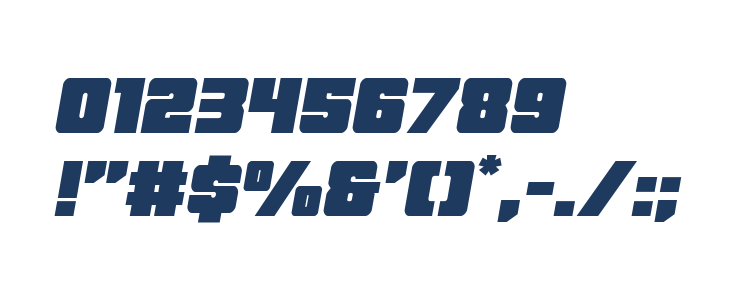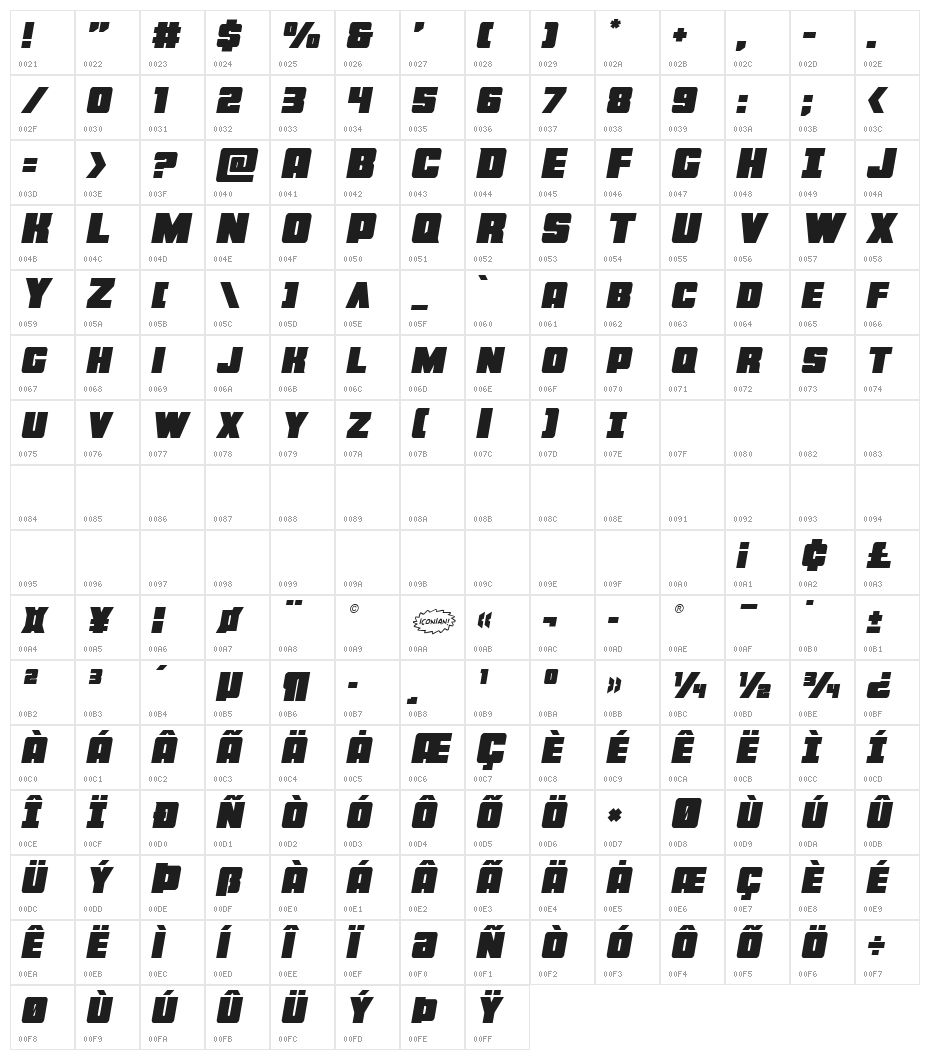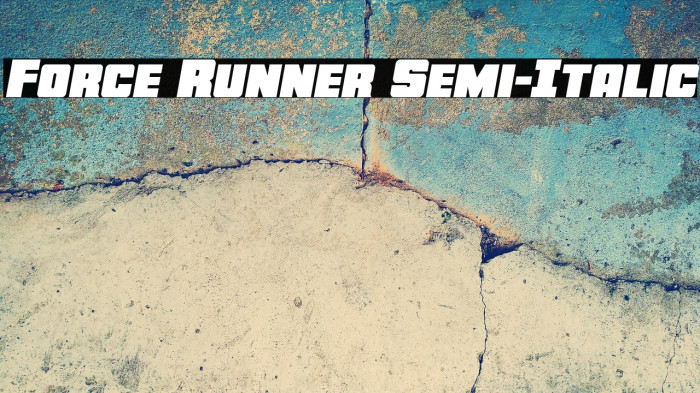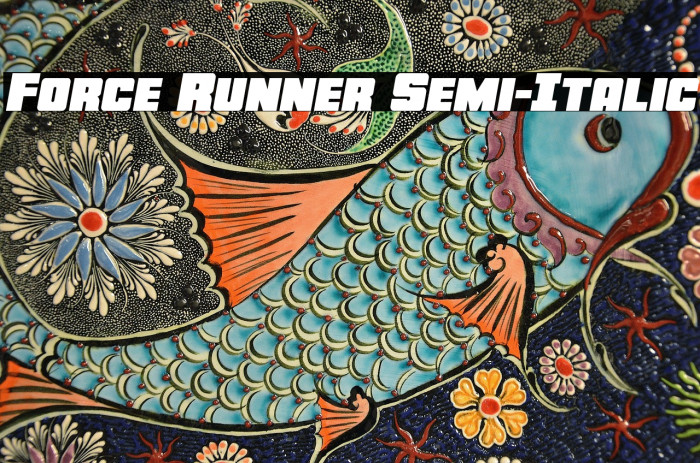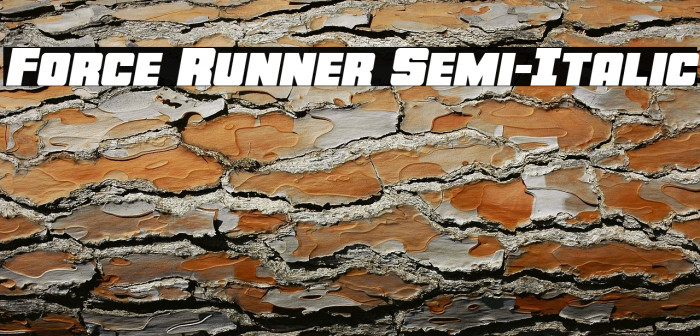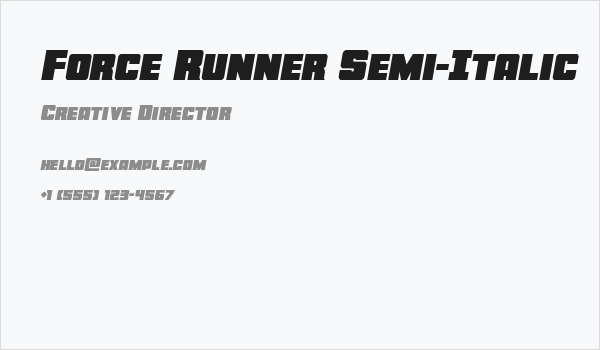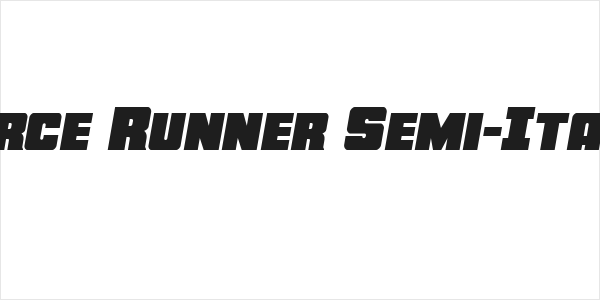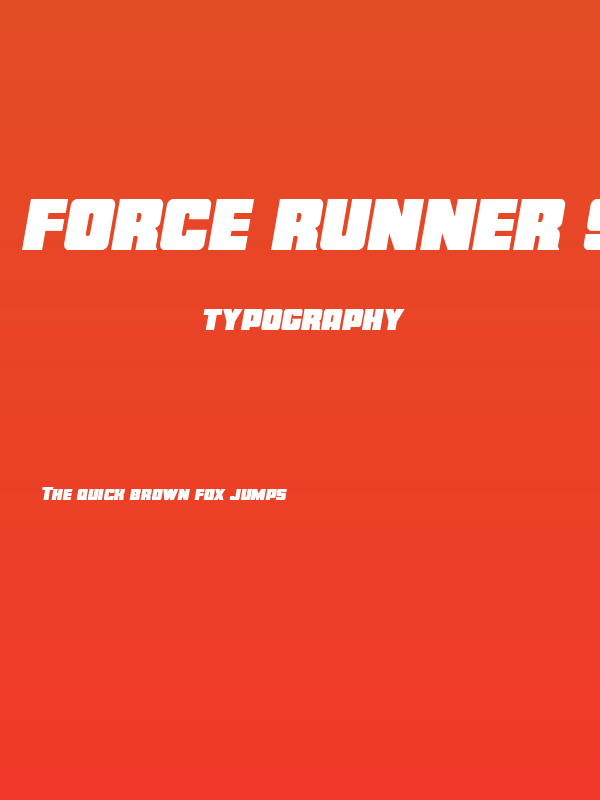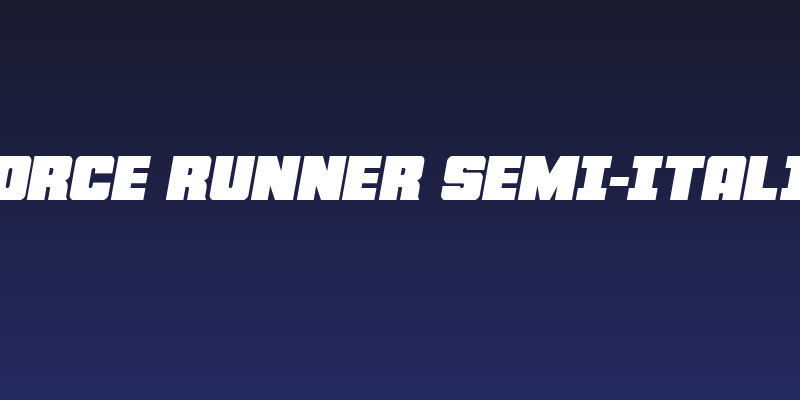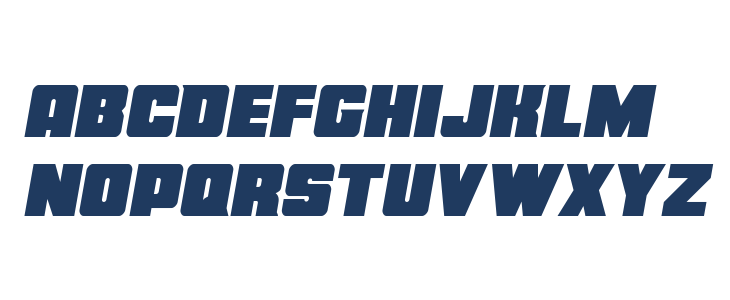
Force Runner Semi-Italic Font
Force Runner Semi-Italic Description
This font features a bold and dynamic style with a semi-italic slant, giving it a sense of motion and energy. The characters are wide and blocky, with a strong presence that commands attention. The uppercase letters are particularly striking, with a uniform thickness that emphasizes their boldness. The numbers and special characters maintain the same robust style, ensuring consistency across all text elements. This font is ideal for projects that require a powerful and impactful visual statement.